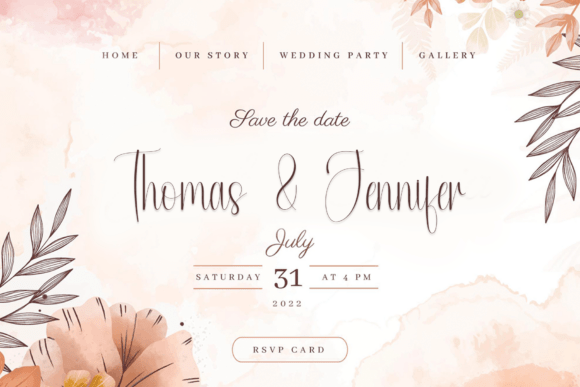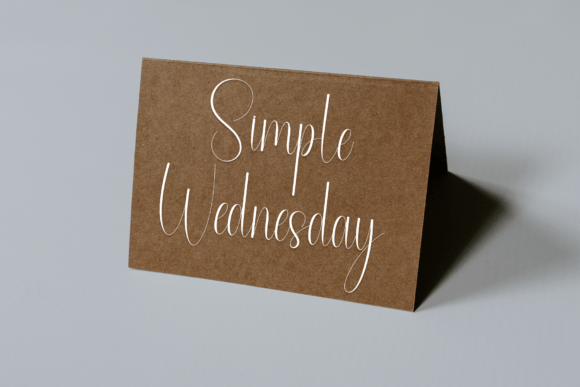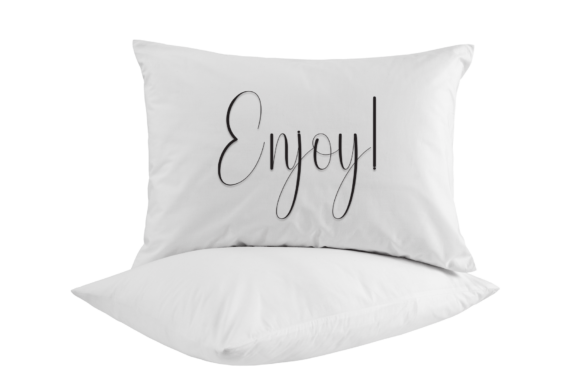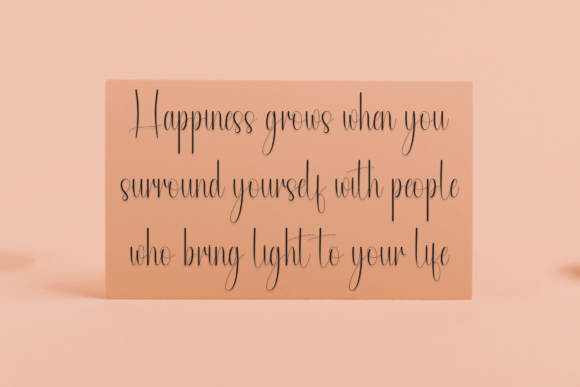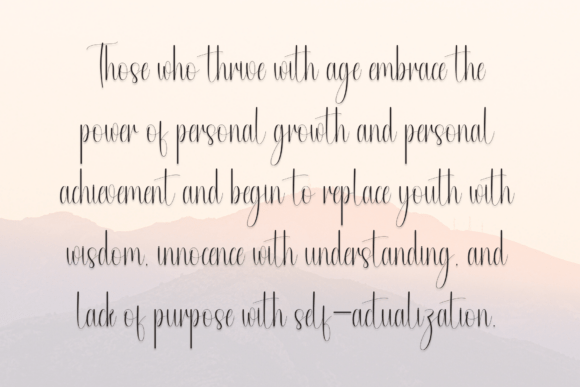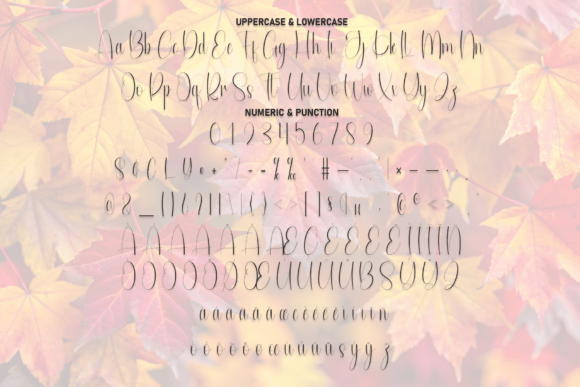
A Charming Addition to Your Design Toolbox: Autumn Font
Have you ever stumbled upon the perfect font while browsing through a design market, only to find yourself envisioning all the beautiful projects you could create with it? For designers, discovering the perfect font can be a game-changer, and today, we’re excited to introduce you to Autumn Font – a delightful handwritten display font that’s sure to bring a touch of sweetness to your designs.
With its playful and whimsical feel, Autumn Font is perfect for adding a light-hearted touch to wedding invitations, heartfelt cards, or any design that needs a dash of joy and warmth. Its simplicity and charm make it a valuable addition to any designer’s toolbox, offering endless possibilities for creative expression. Whether you’re a seasoned designer or just starting out, Autumn Font is sure to bring a smile to your face and inspire your next design project.
Autumn Font Key Features
- Unique Characteristics: Features a warm, earthy tone with intricate details and subtle texture, evoking the feeling of autumn leaves.
- Font Styles: Includes 3 font styles: Regular, Italic, and Bold, offering versatility for various design applications.
Designer Review: Autumn Font
Overall, I’d say Autumn Font is a solid choice for any project that needs a warm, inviting aesthetic. Here’s what I like about it:
- ✨ Elegant, cursive design that feels cozy and welcoming. Perfect for invitations, greeting cards, or any project that needs a touch of whimsy.
- ✨ The font is highly legible, even at smaller sizes, making it a great choice for body text or small print.
- ✨ The font has a nice, subtle texture that adds depth and visual interest to any design.
- ⚠️ The font is quite ornate, which can make it difficult to pair with bold, modern fonts. It’s best used in projects with a more traditional or vintage aesthetic.
- ⚠️ The font may be too delicate for headings or titles, where a bolder font is often preferred.
In conclusion, Autumn Font is a lovely choice for the right project. While it may not be suitable for every design, its elegant, cursive design and high legibility make it a great option for projects that need a touch of warmth and whimsy.
Use the Autumn font for seasonal designs, such as Halloween or Thanksgiving invitations, or for creating a cozy and rustic atmosphere in your designs.
Q: Does Autumn Font support ligatures and contextual alternates?
Yes, Autumn Font includes ligatures and contextual alternates to enhance the overall typographic experience. These features allow for more natural and harmonious letter combinations, making your designs look more polished and professional.